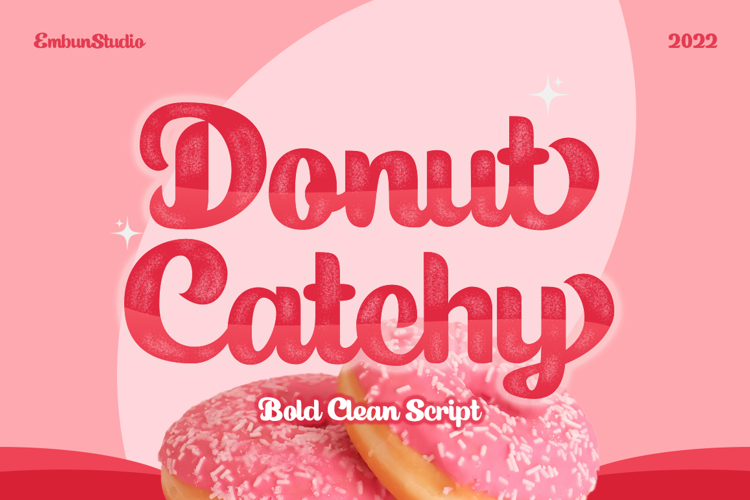
Donut Catchy Font
Donut Catchy feels equally charming and elegant. This stunning script font is a stylish homage to classic calligraphy. It will elevate a wide range of design projects to the highest level, be it branding, headings, wedding designs, invitations, signatures, logos, labels, and much more!